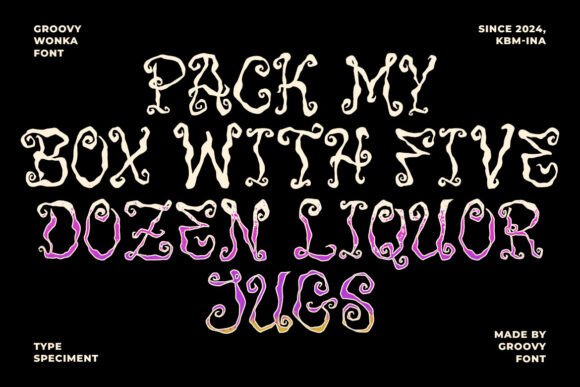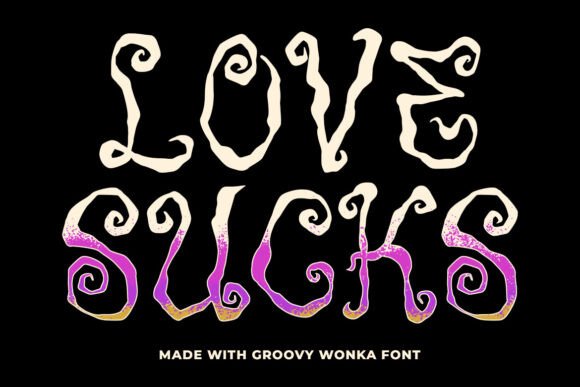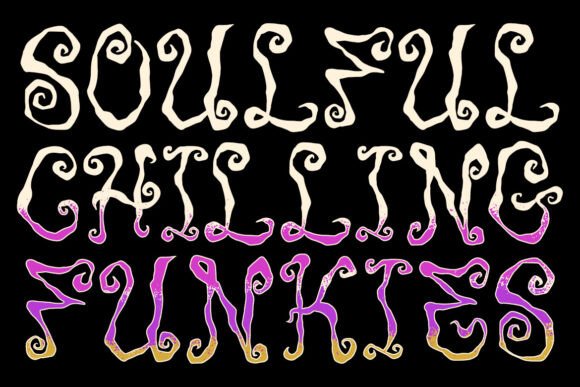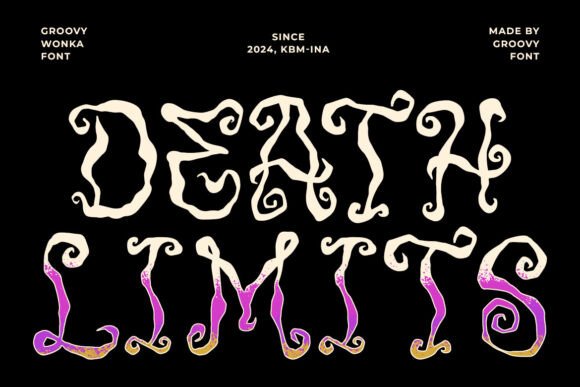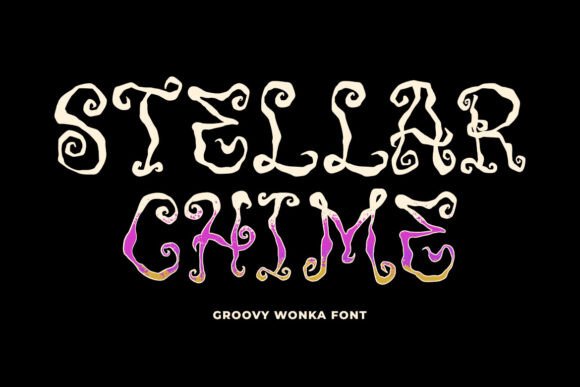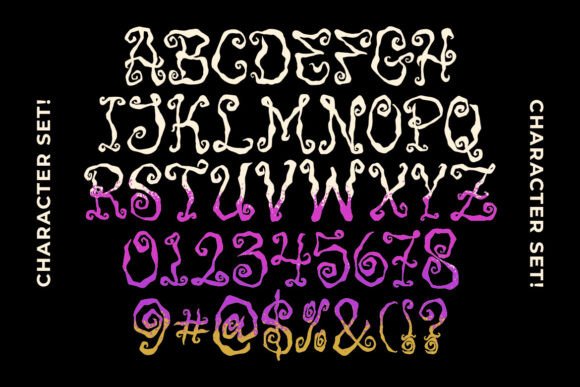
Get Ready to Cast a Spell with the Groovy Wonka Font
As a designer, have you ever found yourself stuck in a creative rut, searching for that perfect font to bring your spooky design to life? We’ve all been there. One fateful Halloween night, while brainstorming ideas for a haunted house flyer, I stumbled upon the perfect solution – the Groovy Wonka Font. Its unique, hand-drawn style and playful elements are a match made in heaven for adding a spooky and fun vibe to any design.
This groovy font is specifically designed for Halloween-themed design projects, making it a valuable addition to any designer’s toolkit. With its rough, swirly texture, the Groovy Wonka Font is sure to cast a spell on your audience and leave them begging for more. Whether you’re creating a haunted house invitation, a spooky logo, or a Halloween-themed social media graphic, this font is sure to bring a touch of magic to your design.
Groovy Wonka Font Key Features
- Unique Characteristic: The Groovy Wonka Font features a unique, hand-drawn style with a mix of bold and playful lines, making it perfect for creating eye-catching and whimsical designs.
Groovy Wonka Font Review
As a designer, I was initially drawn to the Groovy Wonka Font due to its whimsical and playful aesthetic. ✨ The font’s unique blend of vintage and modern elements makes it perfect for creative projects that require a touch of nostalgia and fun. I particularly enjoy using it for food, lifestyle, and entertainment-related designs.
Here are some of the things that work well for me:
- ✨ Unique and recognizable design: The Groovy Wonka Font has a distinct look that instantly grabs attention and sets it apart from other fonts.
- ✨ Versatility: It can be used for a wide range of projects, from logos and branding to typography and editorial content.
- ✨ High-quality rendering: The font renders well at various sizes and resolutions, making it suitable for both digital and print applications.
- ⚠️ Limited character set: The font’s character set is not as extensive as some other fonts, which may limit its use for certain types of projects.
- ⚠️ Not ideal for body text: Due to its playful and ornate design, the Groovy Wonka Font may not be the best choice for large blocks of body text.
Overall, I think the Groovy Wonka Font is a great addition to any designer’s toolkit. While it may not be suitable for every project, its unique charm and versatility make it a great choice for creative and attention-grabbing designs.
Tips for Getting the Most Out of Groovy Wonka Font
To get the most out of Groovy Wonka Font, use it for creative and playful designs, such as:
- Food and drink labels
- Party invitations
- Children’s book covers
Remember to use the font in moderation and balance it with other design elements to avoid overwhelming the viewer.